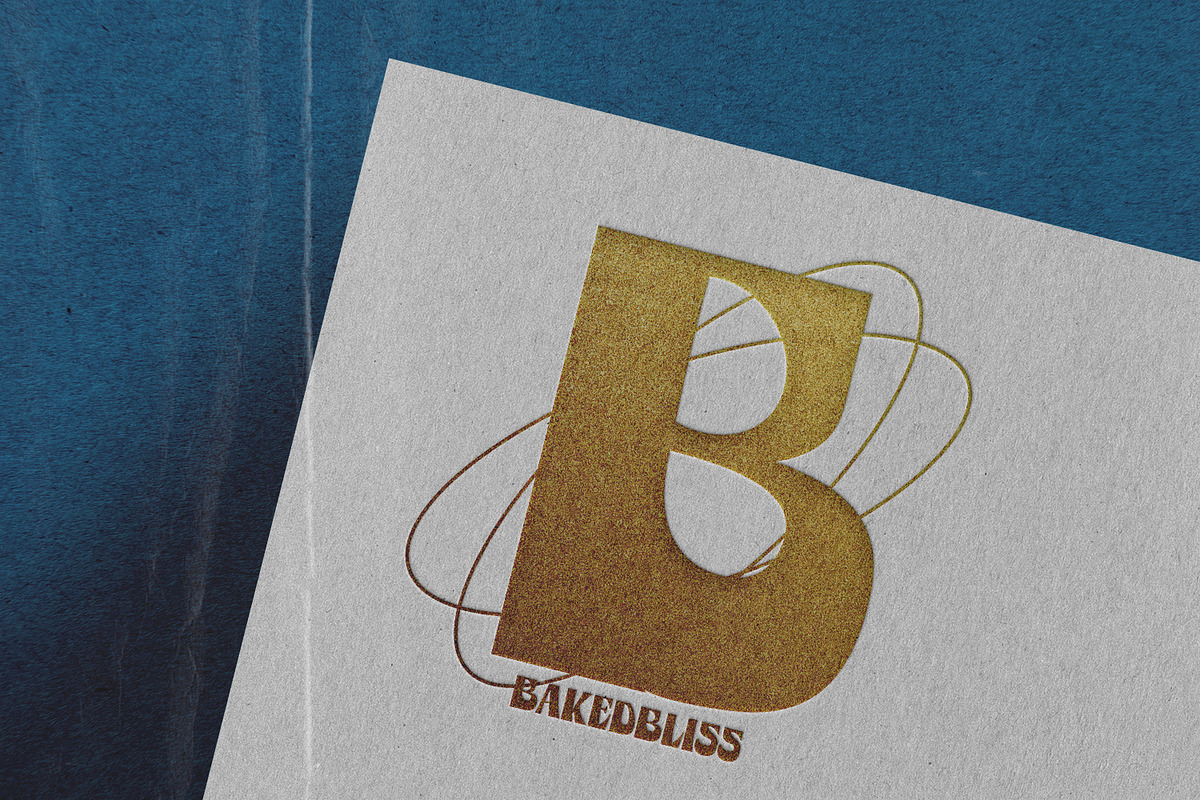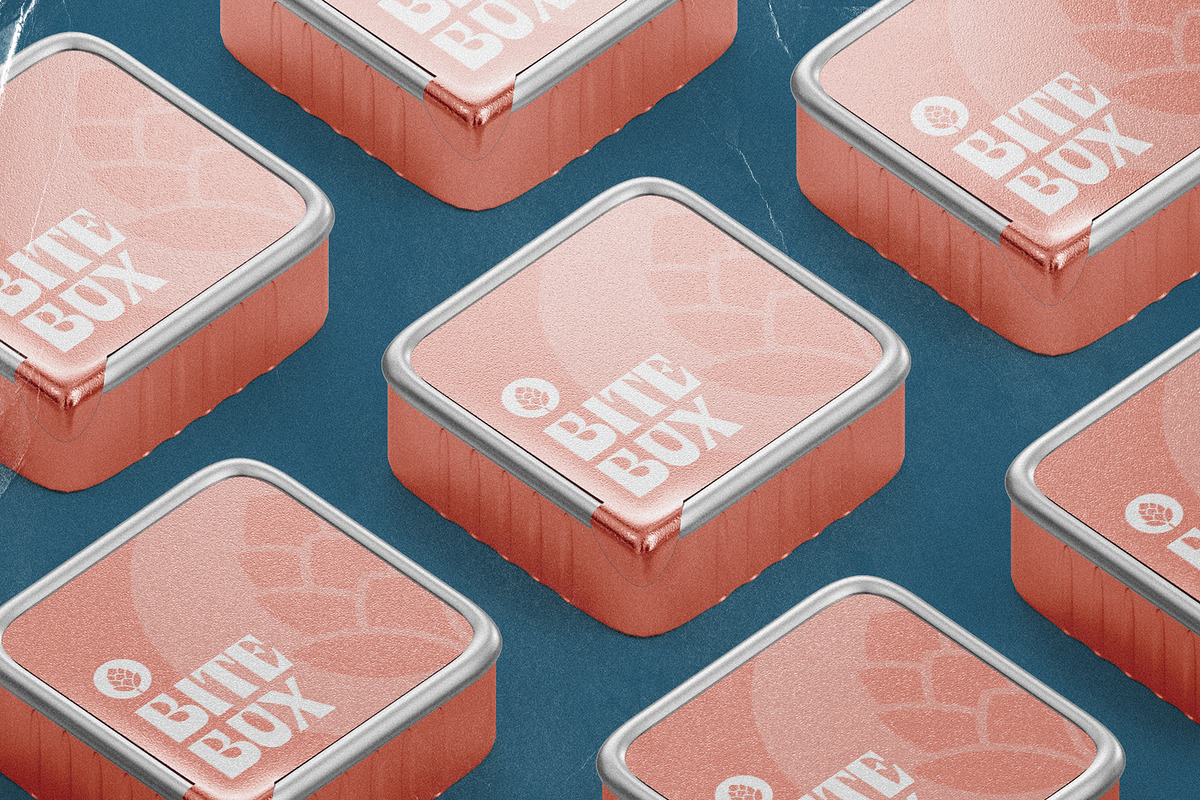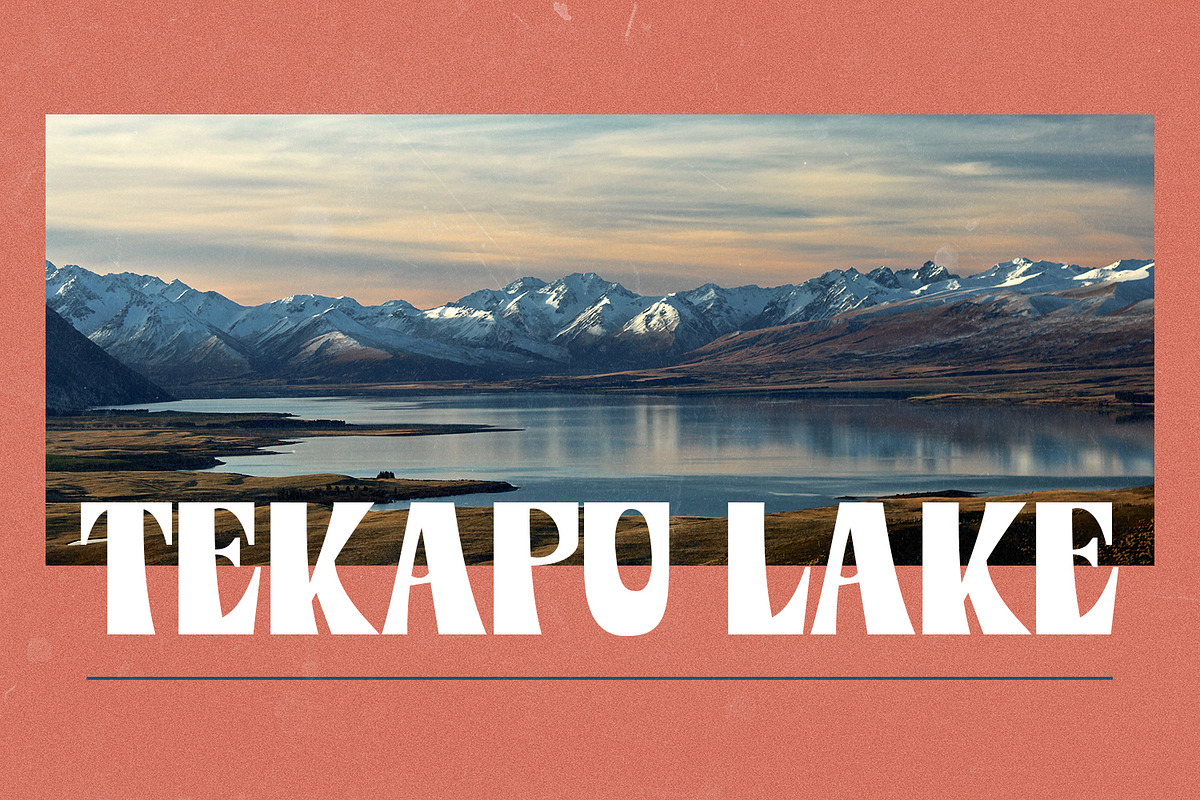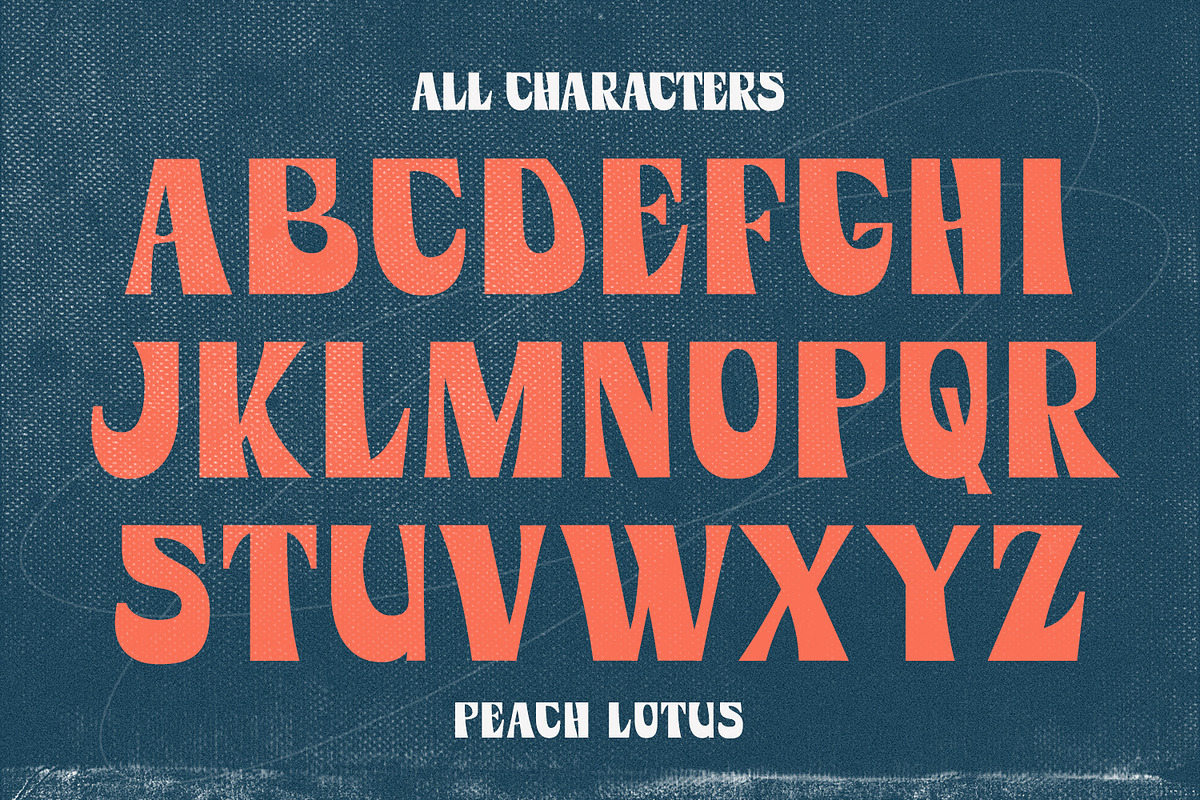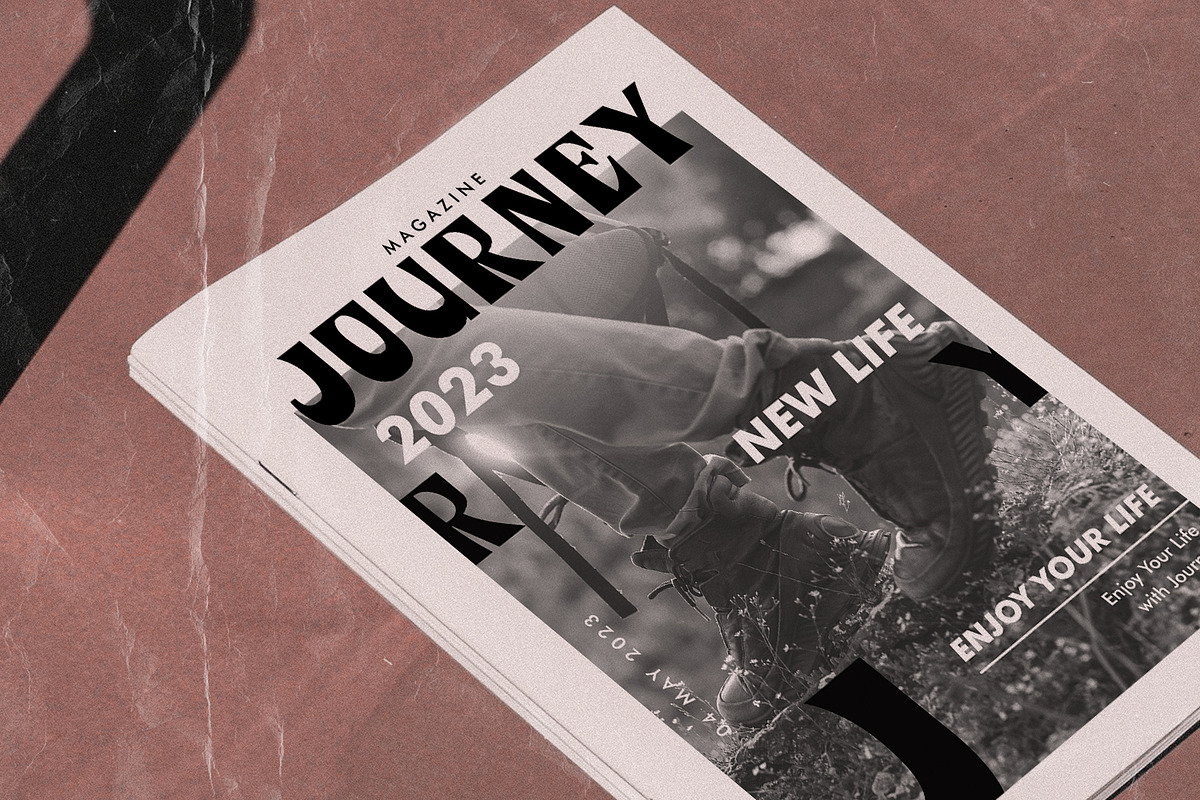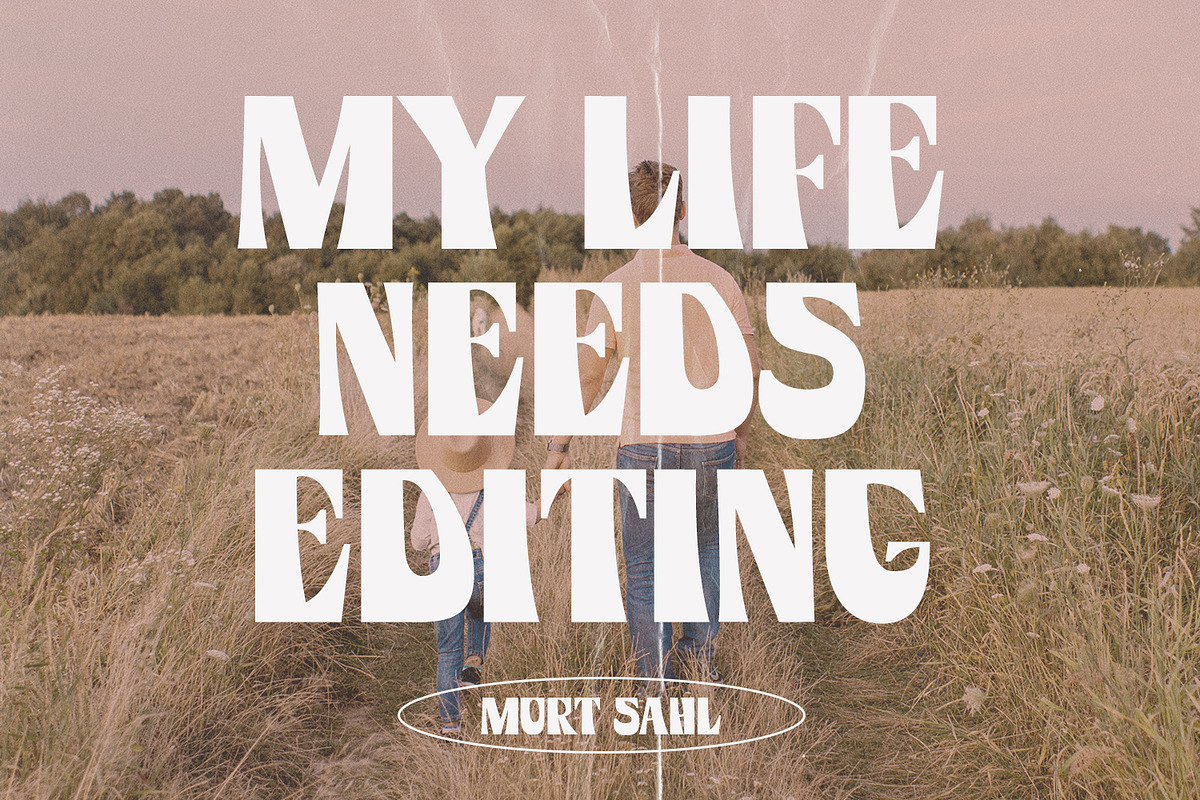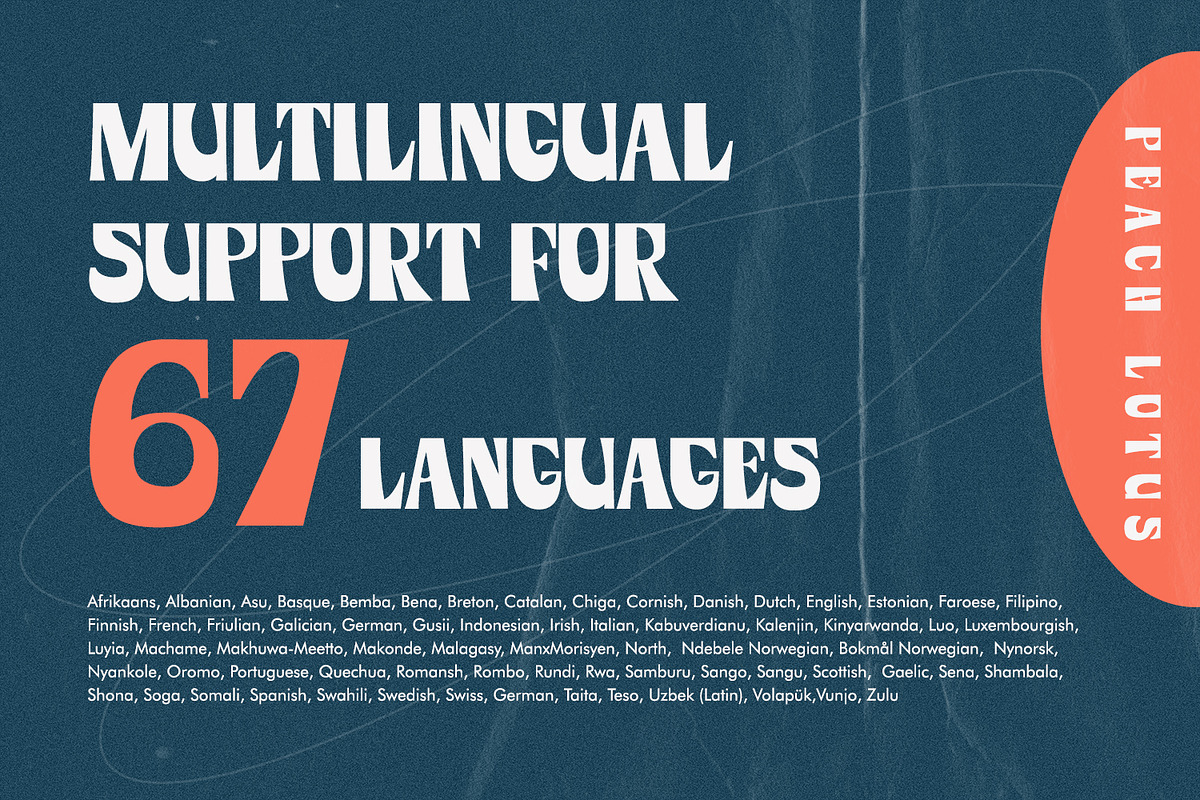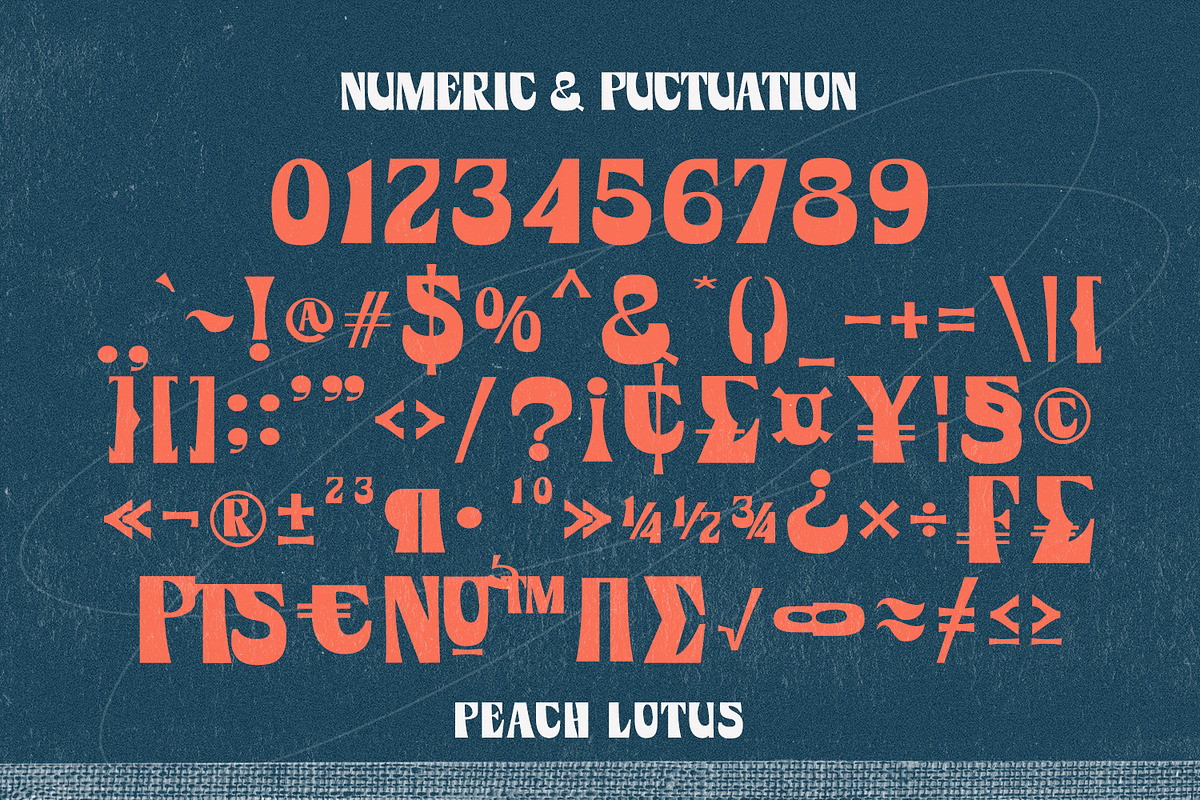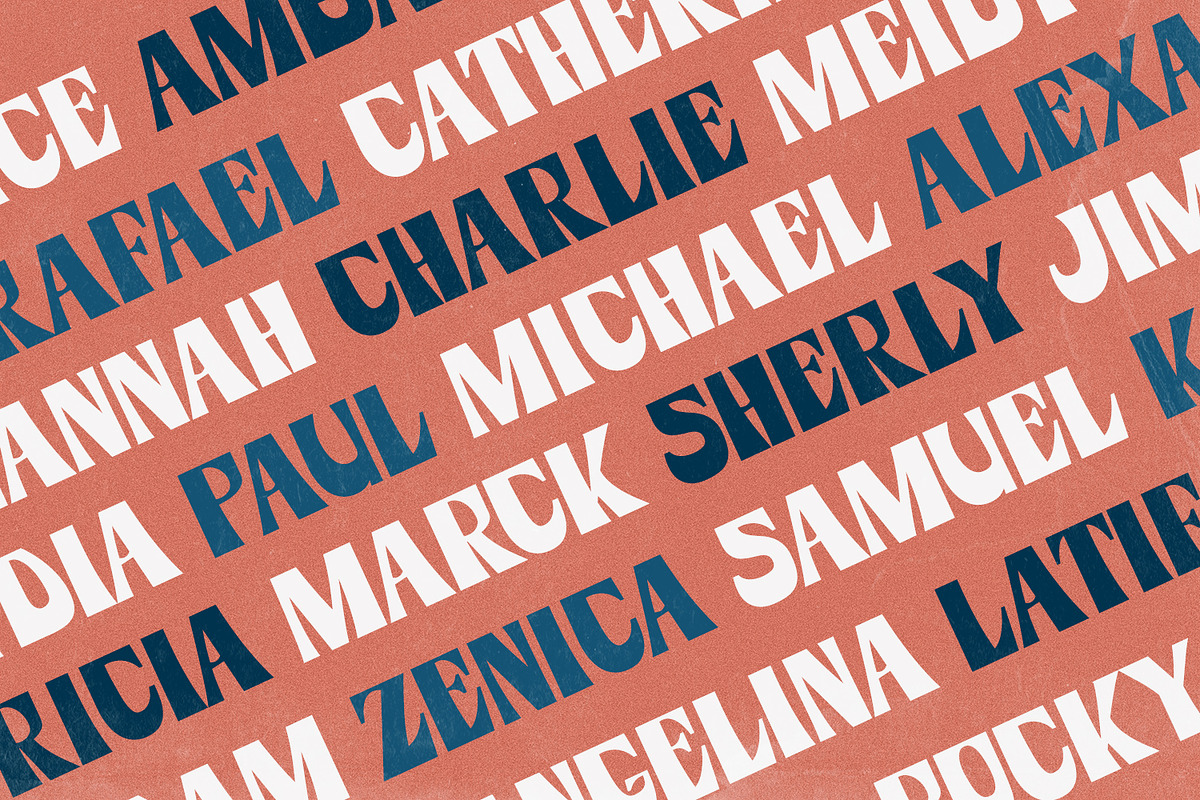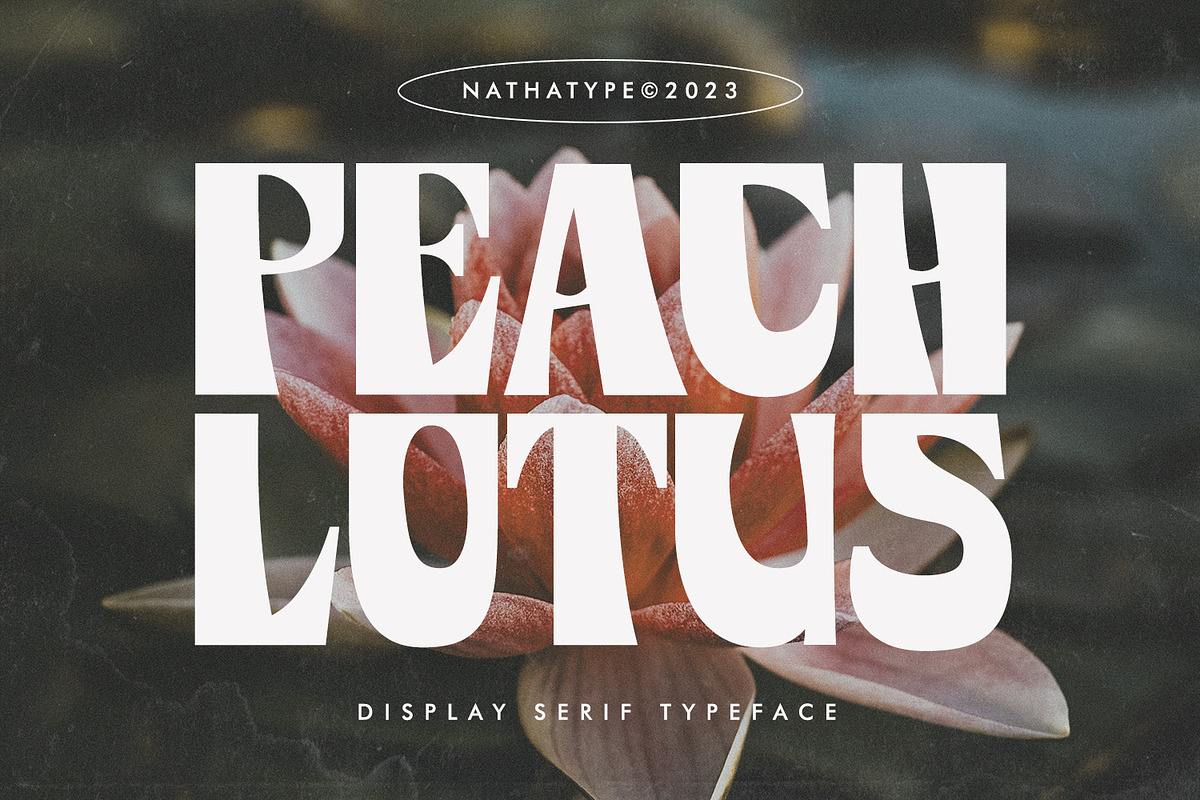
Peach Lotus
It can be a tough challenge to present the best display for your projects, especially in limited options of fonts. For that reason, let us introduce you to our display serif font to amaze your audience with your projects.
Peach Lotus is a display serif font we created by mixing the classical serif elements with big, bold-sized letters for you to impress and attract your audience. On top of that, it gives you more artistic, creative touches as a result of the display font combinations. A display font with thickly-lined and high contrast capital letters will produce a prominent display to strengthen the impressions delivered. In addition, you can apply this font for big-sized texts to be legible. Also, you can enjoy the available features here.
Peach Lotus fits best for various design projects, such as brandings, posters, banners, headings, magazine covers, quotes, printed products, merchandise, social media, etc. Find out more ways to use this font by taking a look at the font preview.